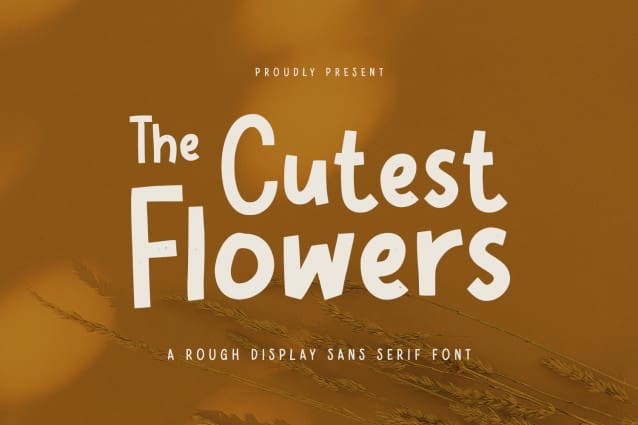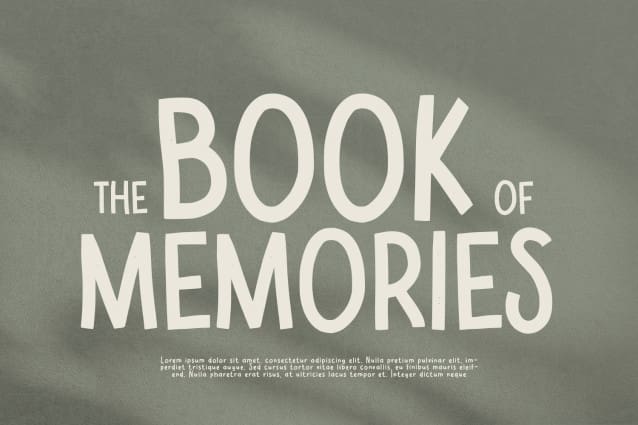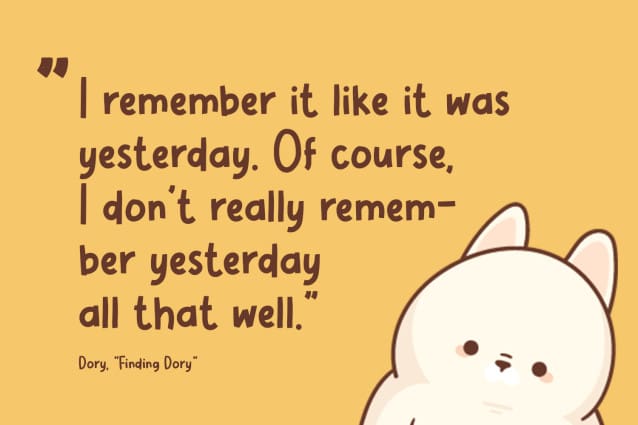
Cutest Flowers Font
Cutest Flowers Font is a display font with elegant and modern feels. It will be perfectly used for Branding, Logo Design, Lettering, Logotype, Clothing, Poster, magazine, packaging, posters, shopping bags, t-shirts, book covers, photography, special events and other design project.